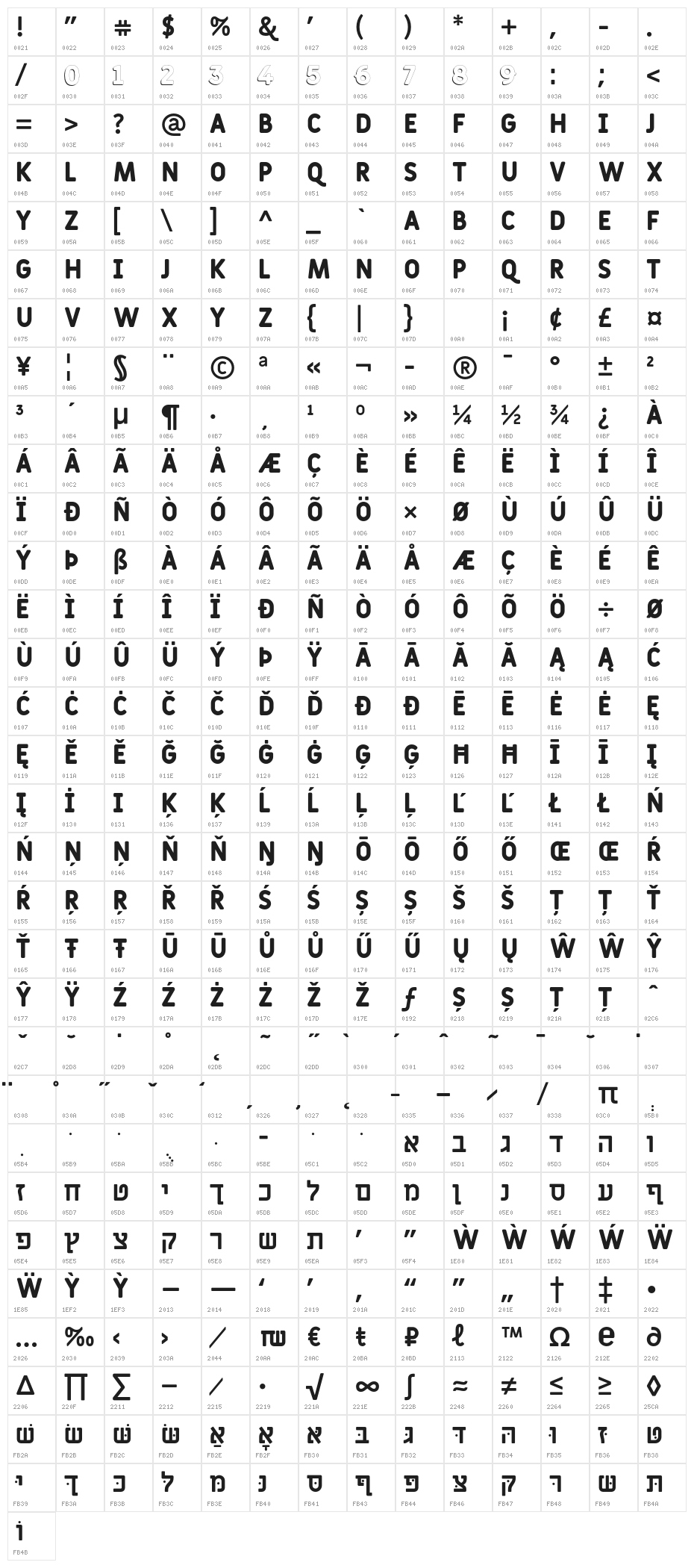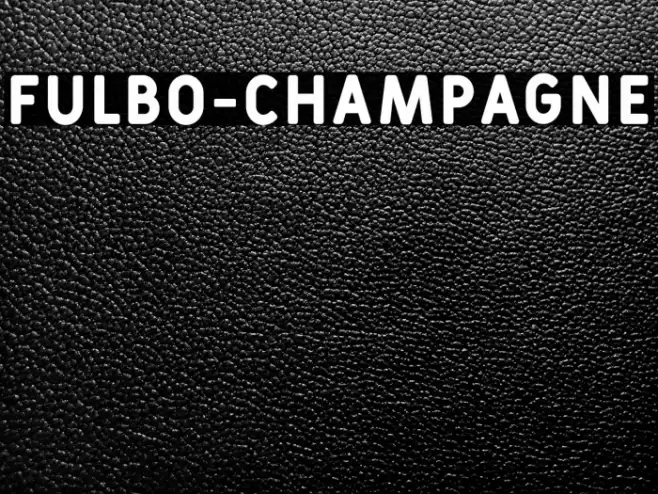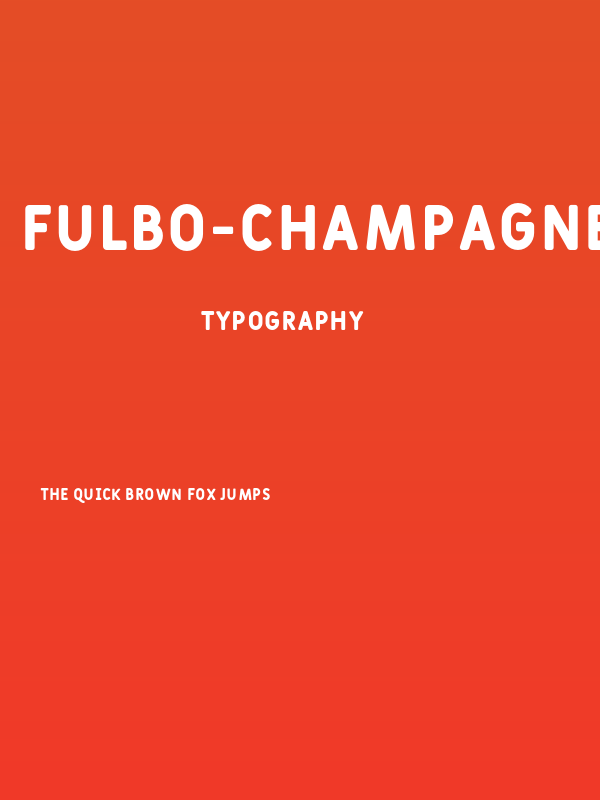
Fulbo-Champagne Font
Fulbo-Champagne Description
This font features bold, rounded characters with a modern and friendly appearance. The uppercase letters are uniform in height, providing a clean and cohesive look. The numbers are distinct, with a slight emphasis on curves, adding a playful touch. Special characters are clearly defined, maintaining the font's overall readability. The design is versatile, suitable for various applications where a contemporary and approachable style is desired. Its boldness ensures visibility, making it ideal for attention-grabbing headlines or branding materials.
Fulbo Font
| Proposed Projects | Ideal for branding, advertising, posters, and digital media where a modern and approachable look is needed. |